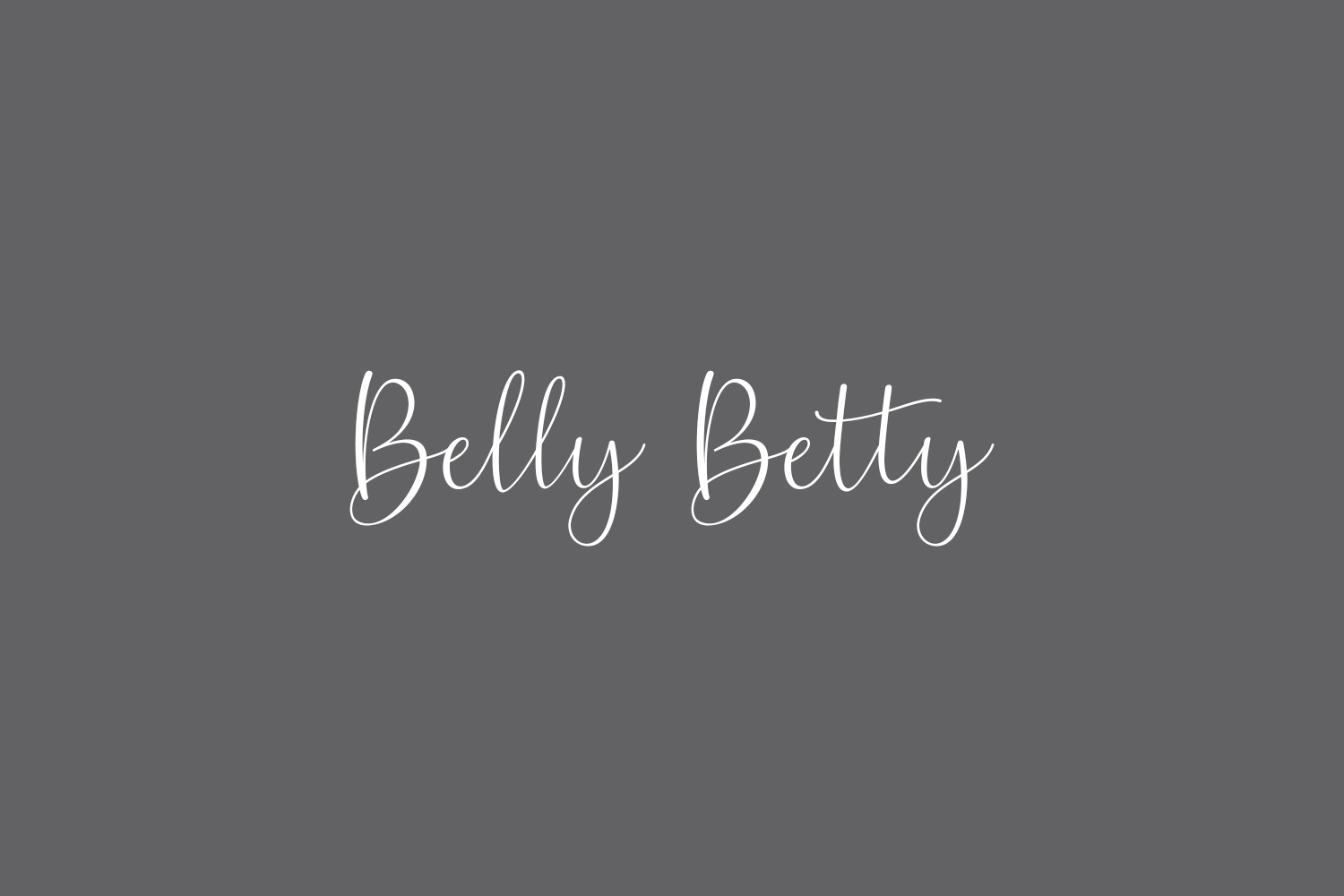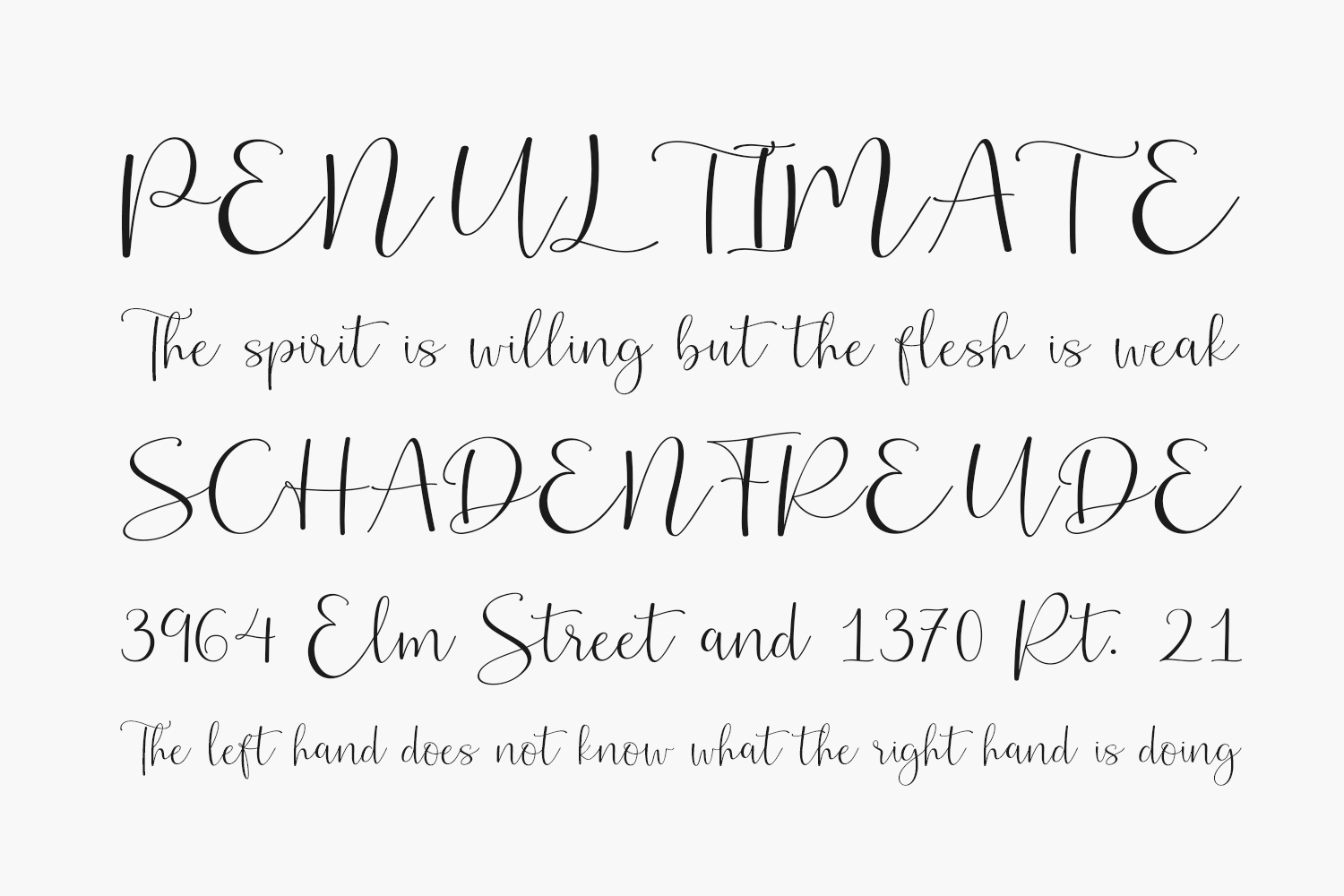
Belly Betty Free Font is a beautiful, modern, and new calligraphy font with many alternative styles. It’s an elegant font, perfect for any extraordinary project. Belly Betty Free Font was designed by EFOS Studio and is free for personal use only. Please purchase the full version for commercial use.